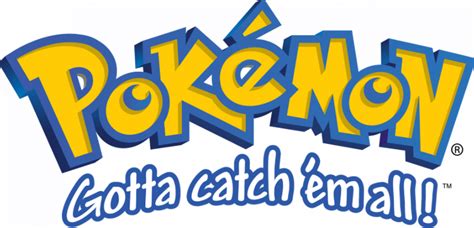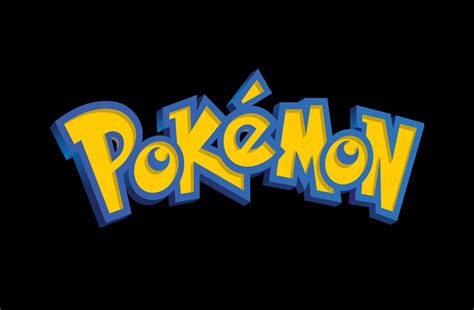
In the ever-evolving world of gaming, little details make big differences — and one unexpected hero has taken center stage: the vibrant, nostalgic Pokémon font that’s sweeping across keyboards, Discord servers, and fan communities alike. Whether you’re a seasoned Pokémon trainer or just a fan looking to add a splash of charm to your digital life, this font is more than eye candy — it’s a life-saving design choice.
Why Esta Tiny Font is Making Waves in the Gaming Community
Pokémon fonts have always had a strong cultural presence, but this particular font has gone shockingly viral for good reason. With its bold lettering, retro-inspired aesthetics, and pixel-perfect charm, it doesn’t just represent your favorite creatures — it revives the golden era of gaming typography that many players miss. For gamers who grew up with classic RPGs and plant-based VRGFM abbreviations, this font brings instant familiarity, fun, and a sense of belonging.
Why You Need This Font in Your Gamer Arsenal
- Boosts Visual Identity: Using a Pokémon font instantly sets your profile, chat, and emote posts apart. It’s eye-catching, unique, and sparks instant recognition — perfect for standing out in busy gaming spaces like Discord, Steam, or Twitch.
- Nostalgia at Its Best: Designed with retro gaming sensibilities, it taps into the timeless appeal of Pokémon’s legacy, creating a warm, comforting experience for longtime fans.
- Lightens the Mood: Gaming can be high-pressure — whether you’re rushing through a Pokémon Battle Loot Spin or strategizing Raid Battles. This playful font adds humor and positivity to chats and announcements.
- Supports Endangered Fonts: The unexpected surge in popularity has helped rescue niche fonts from obscurity. What started as a niche fandom font is now contributing to the preservation of unique digital typography.
Final Thoughts: Pokémon Fonts — More Than Just a Trend
What began as a charming inside joke among Pokémon fans has grown into a meaningful movement rescuing a classic font style from digital neglect. This Pokémon font isn’t just installing your keyboard — it’s reconnecting gamers with shared memories, style, and community.